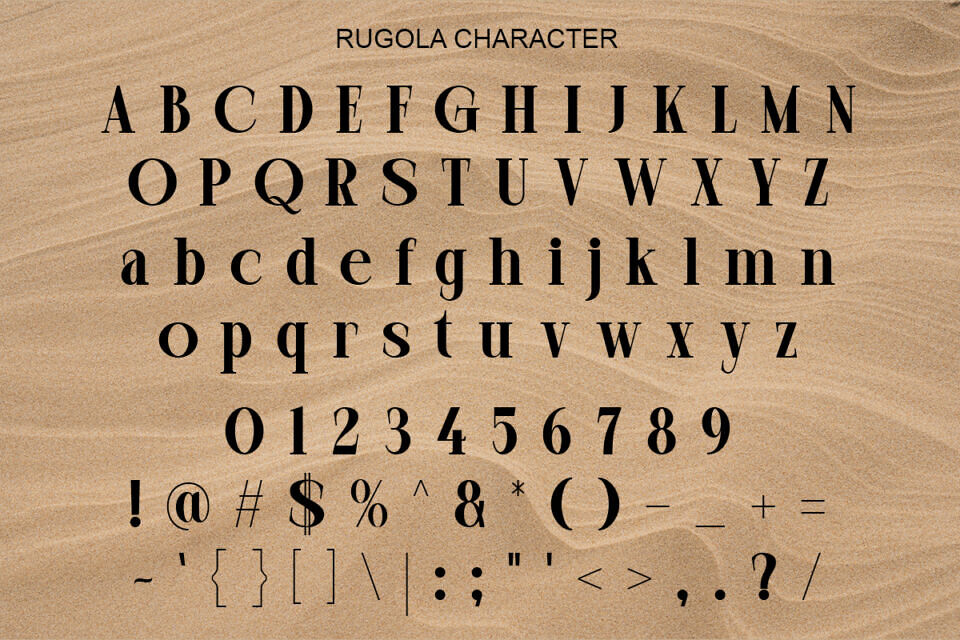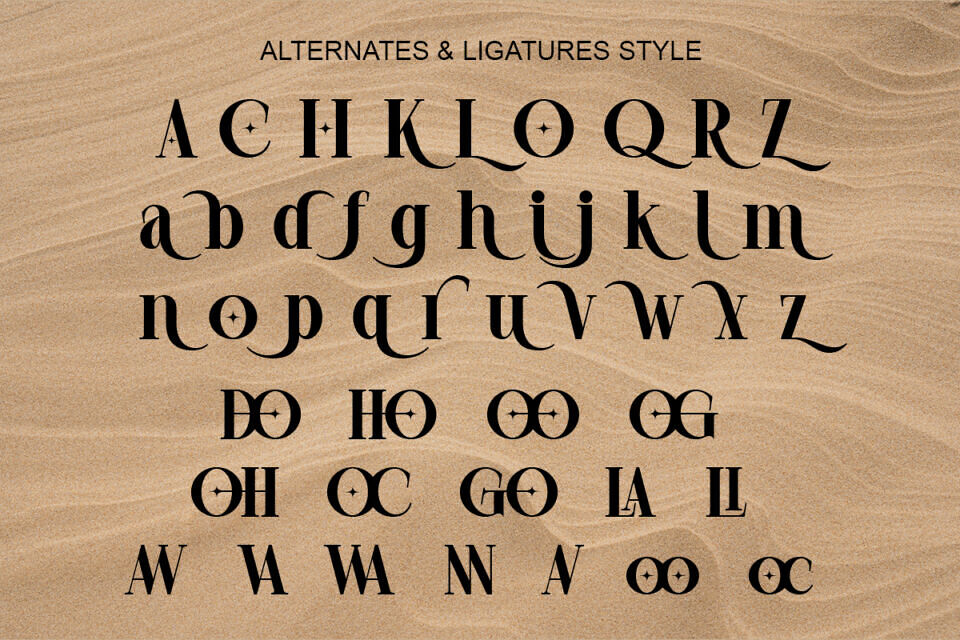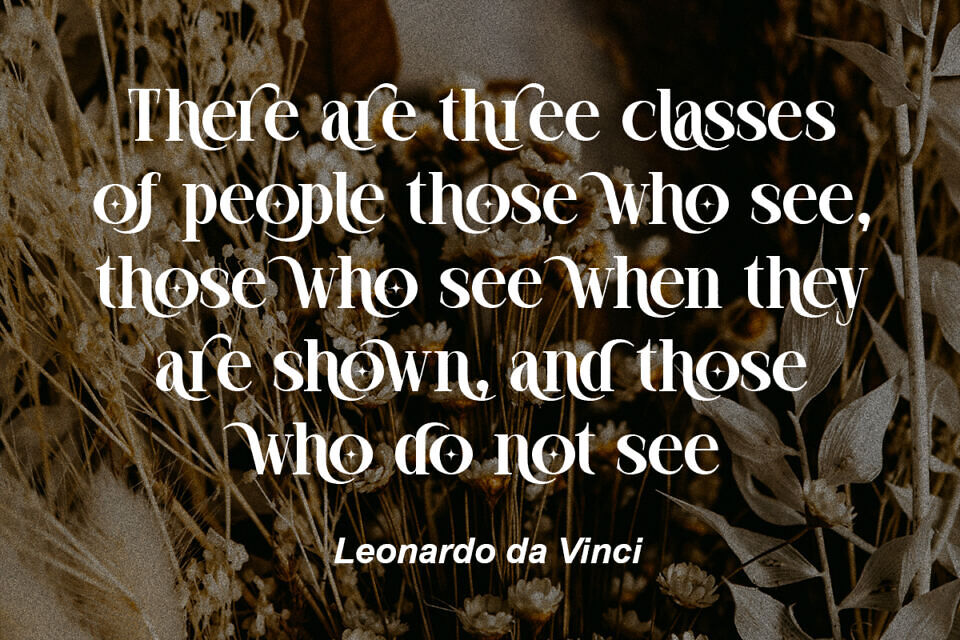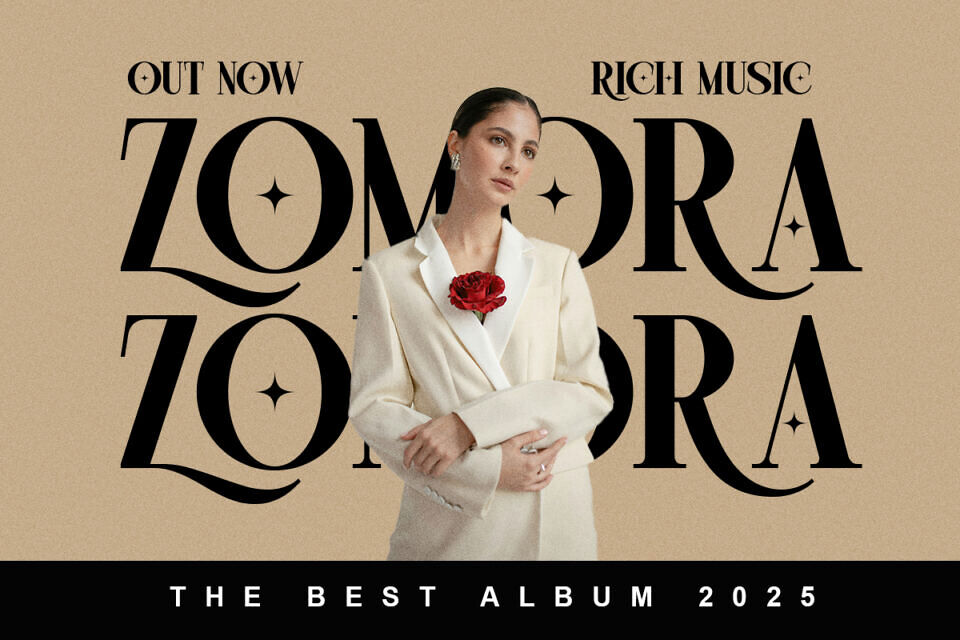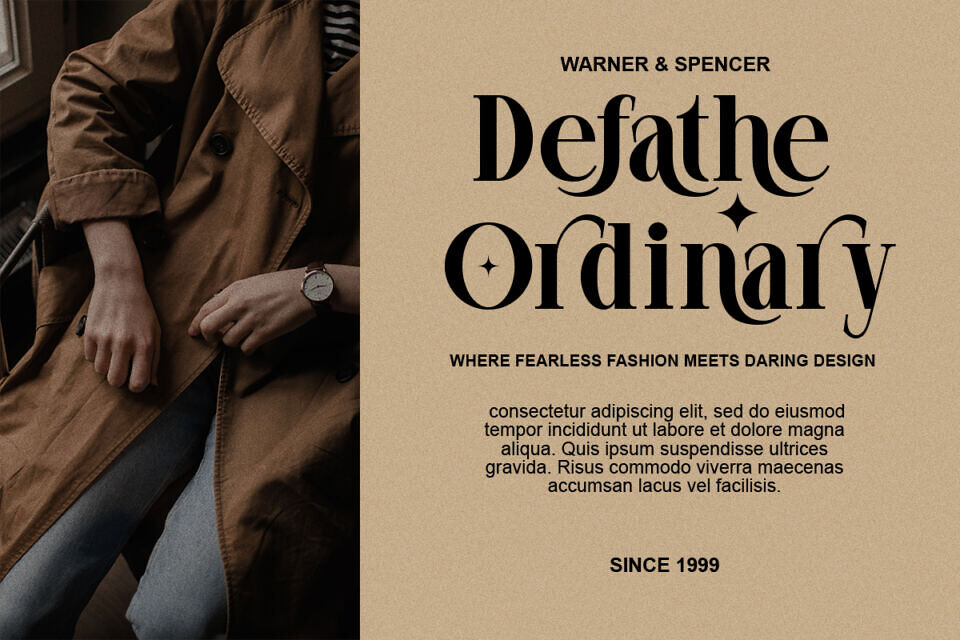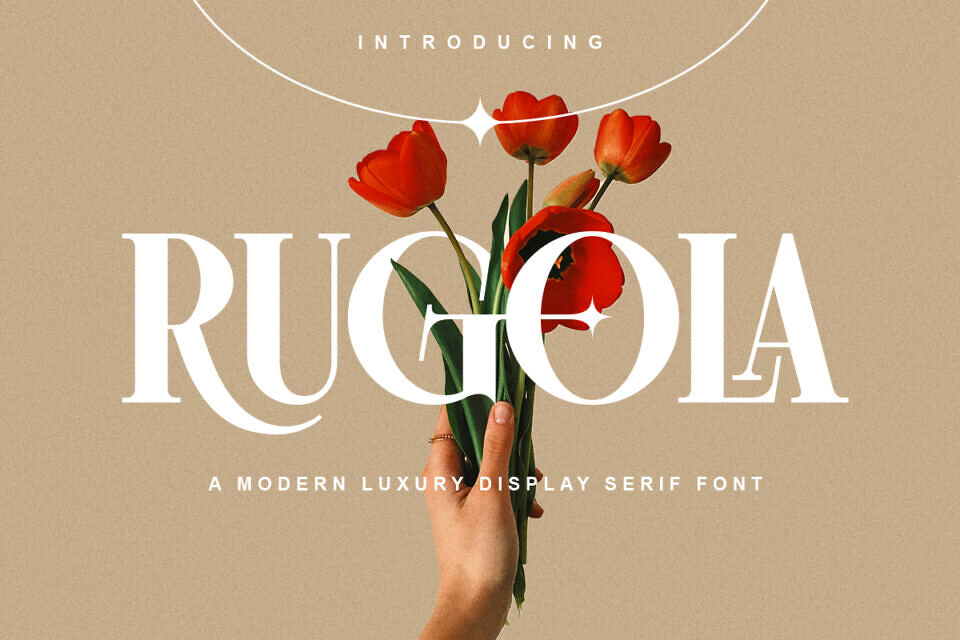
Rugola Font
Rugola is a modern luxury serif typeface that embodies sophistication and timeless elegance. Designed with refined details and balanced proportions, it adds a touch of class to any creative project.
Ideal for logos, packaging, book covers, and high-end branding, Rugola enhances every design with its graceful and contemporary character. Its clean lines and elegant curves create a distinctive visual presence, making it the perfect choice for designers seeking style, refinement, and versatility in one exceptional serif font.